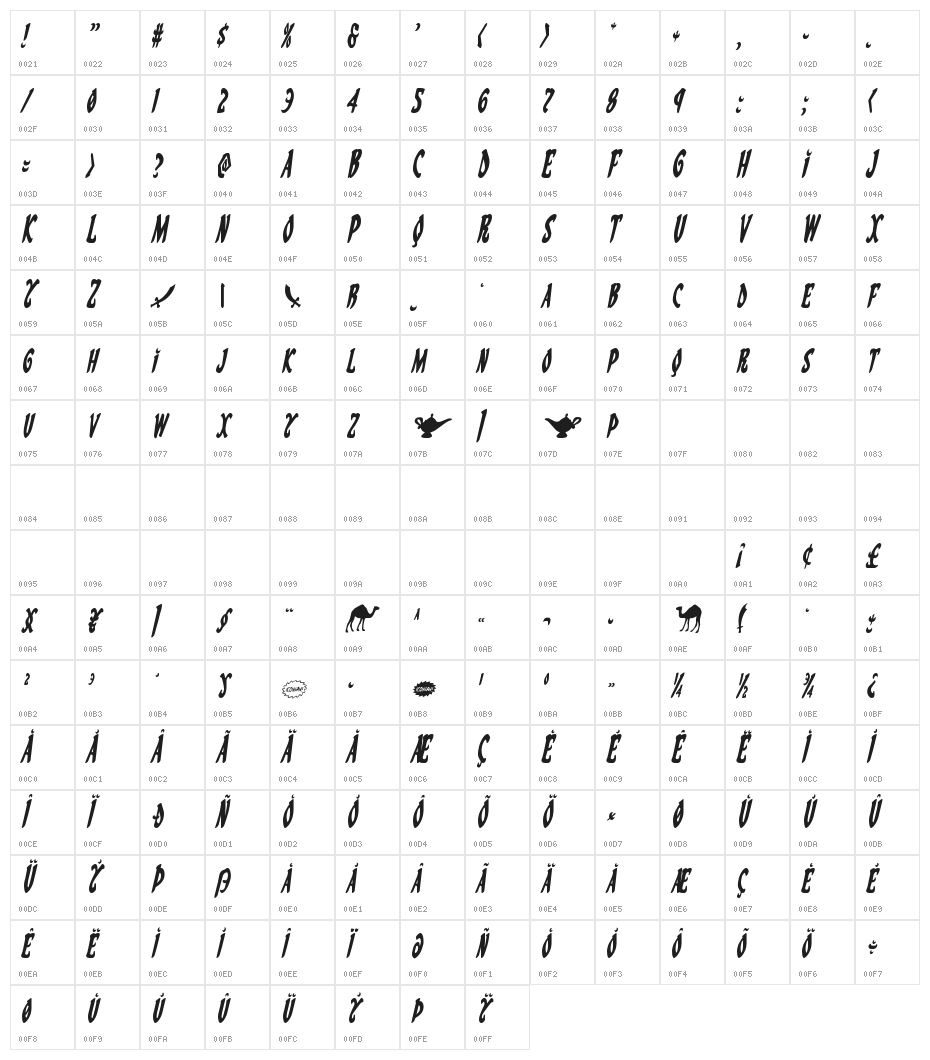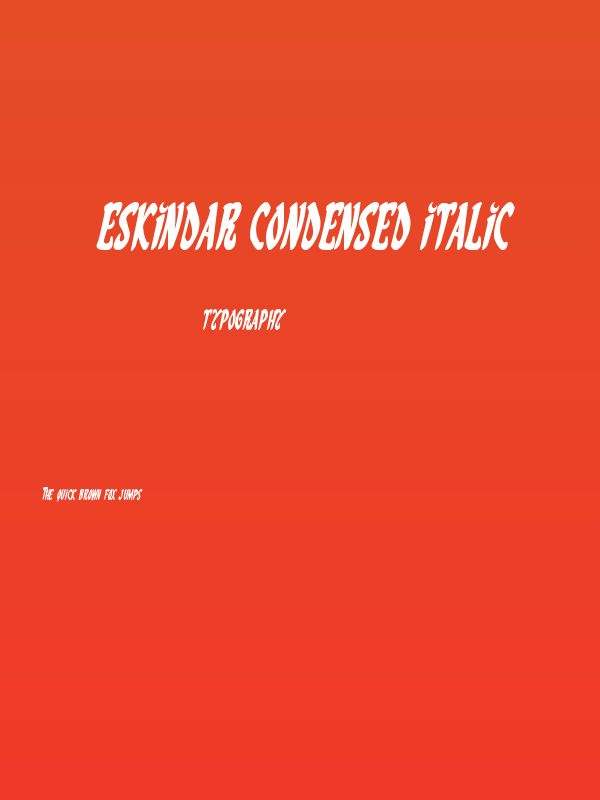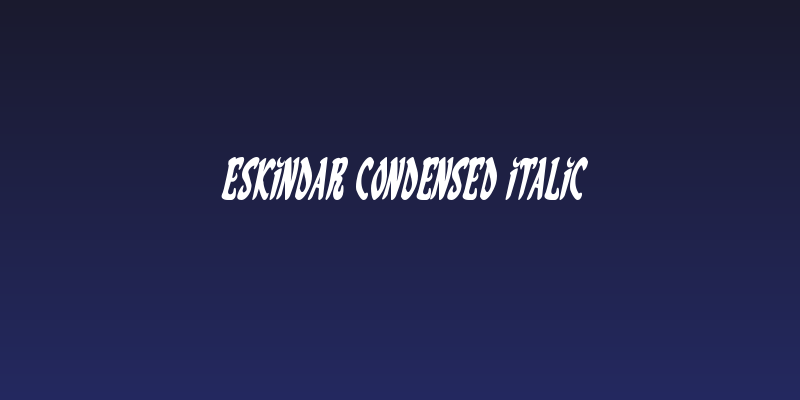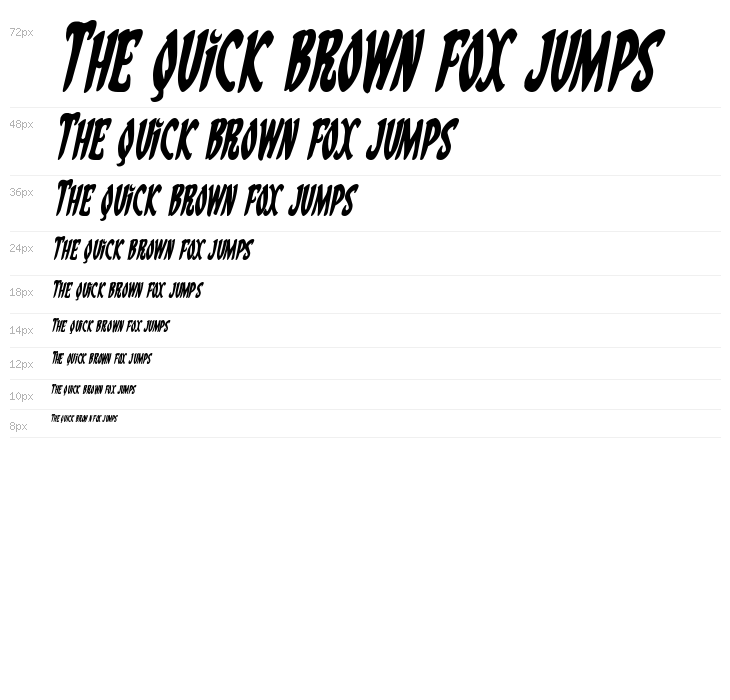
Eskindar Condensed Italic Font
Eskindar Condensed Italic Description
This font features a bold and dynamic style with a condensed and italicized form. The characters exhibit a strong slant to the right, giving a sense of movement and energy. The strokes are thick and consistent, providing a robust appearance. The uppercase and lowercase letters maintain a uniform height, enhancing readability despite the condensed spacing. The numerals and special characters follow the same stylistic cues, ensuring a cohesive look across all elements. This font's unique design makes it stand out, suitable for attention-grabbing headlines and creative projects.
| Proposed Projects | Ideal for posters, branding, logos, and any project requiring a bold, eye-catching typeface. |